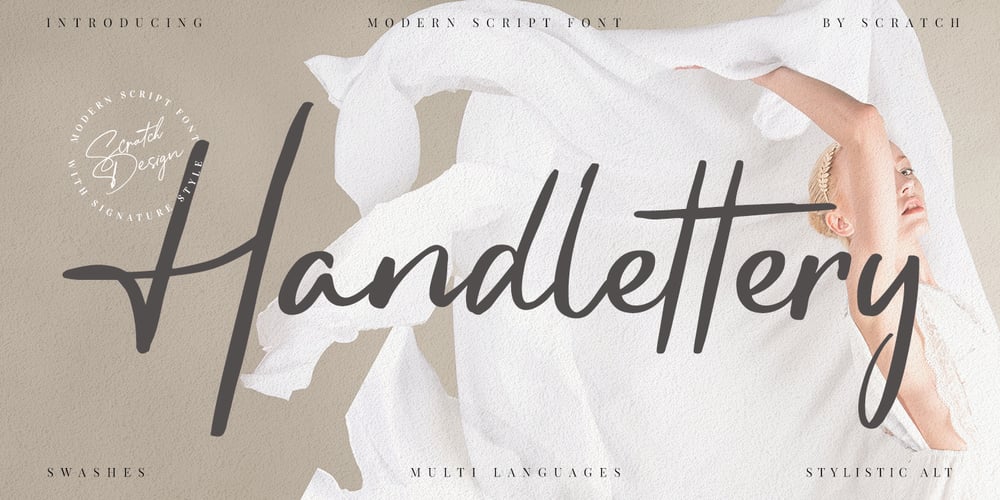
Handlettery Font Family was designed by Gitayogi Irhandi and published by Scratch Design. Handlettery contains 1 styles and family package options. Handlettery is a modern script and handwritten font, which is suit for casual and feminine design stuff. This font is suitable for signature, wedding invitation, branding, promotion, product packaging, poster, and others. You will get a full set of lowercase and uppercase letters, numerals and punctuation, multilingual language, multilingual symbols, swashes, and ligatures.What You Get : Swashes Stylistic Alternates